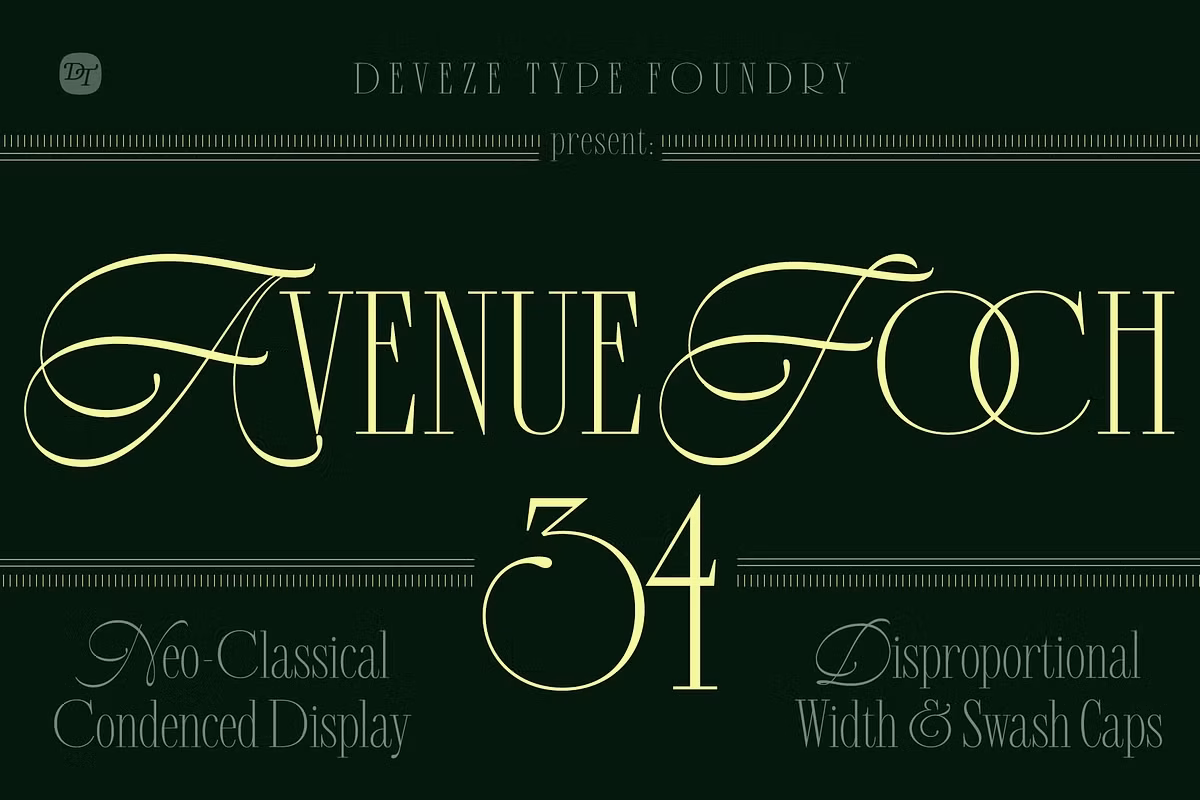
Step into high-end elegance with the DT Avenue Foch Display Font Free Download — a refined, stylish typeface inspired by classic French design and luxury branding. With its bold presence and carefully crafted letterforms, this display font is perfect for fashion editorials, premium packaging, logo design, and elegant web headers.
DT Avenue Foch delivers a sense of grandeur and modernity in perfect harmony. Its clean lines, subtle curves, and luxurious feel make it a go-to font for designers looking to create an upscale visual identity. Whether you're designing for a boutique brand, luxury product, or artistic portfolio, this font adds instant credibility and charm.